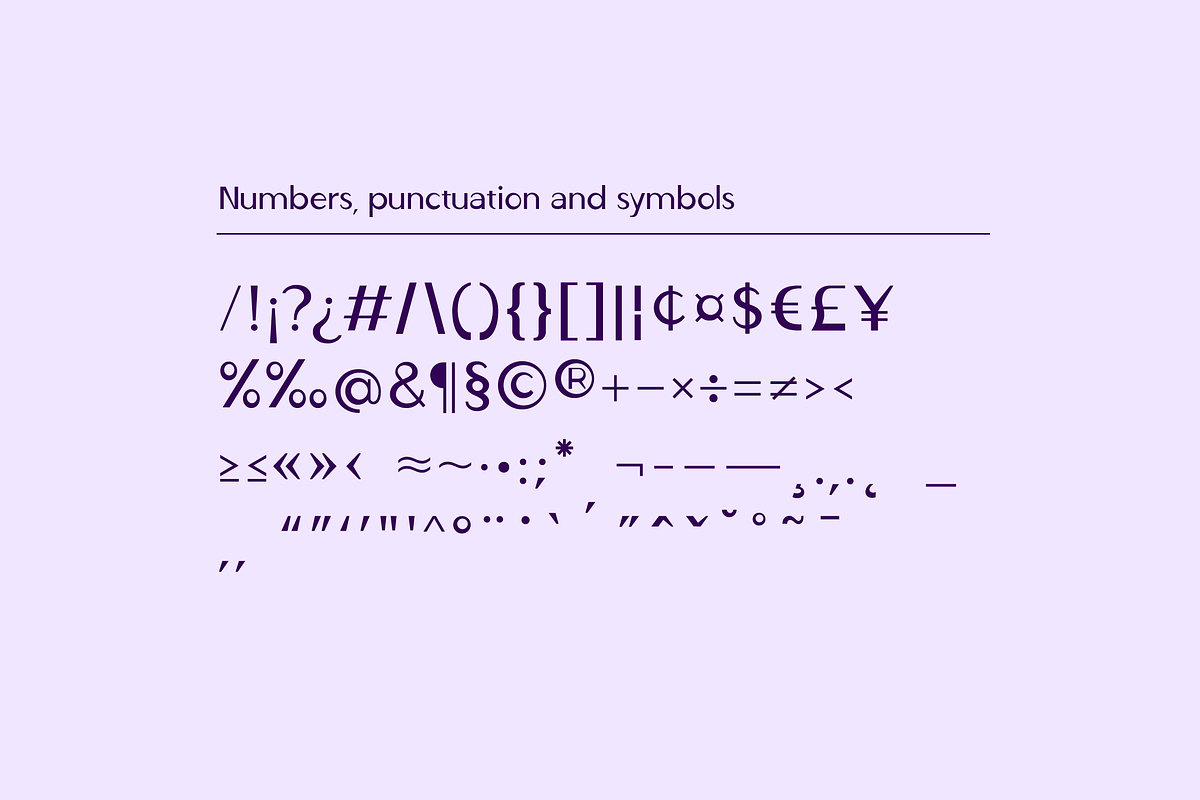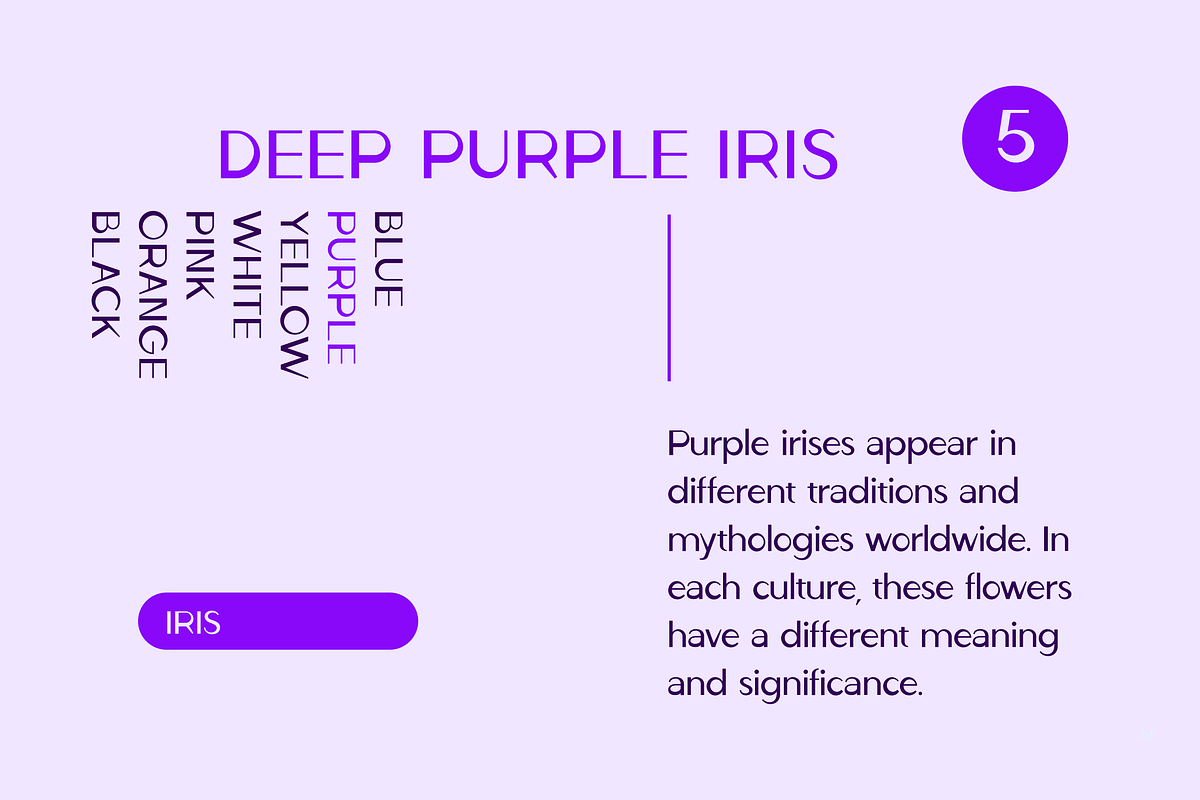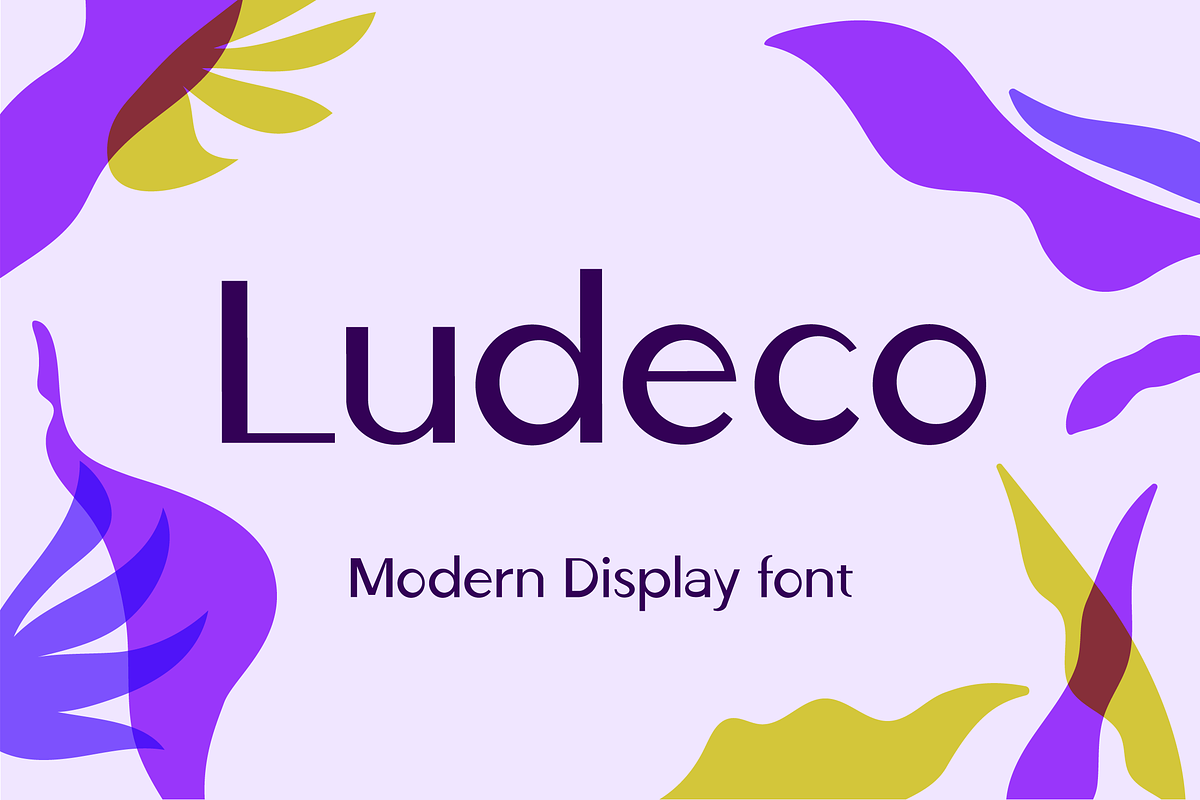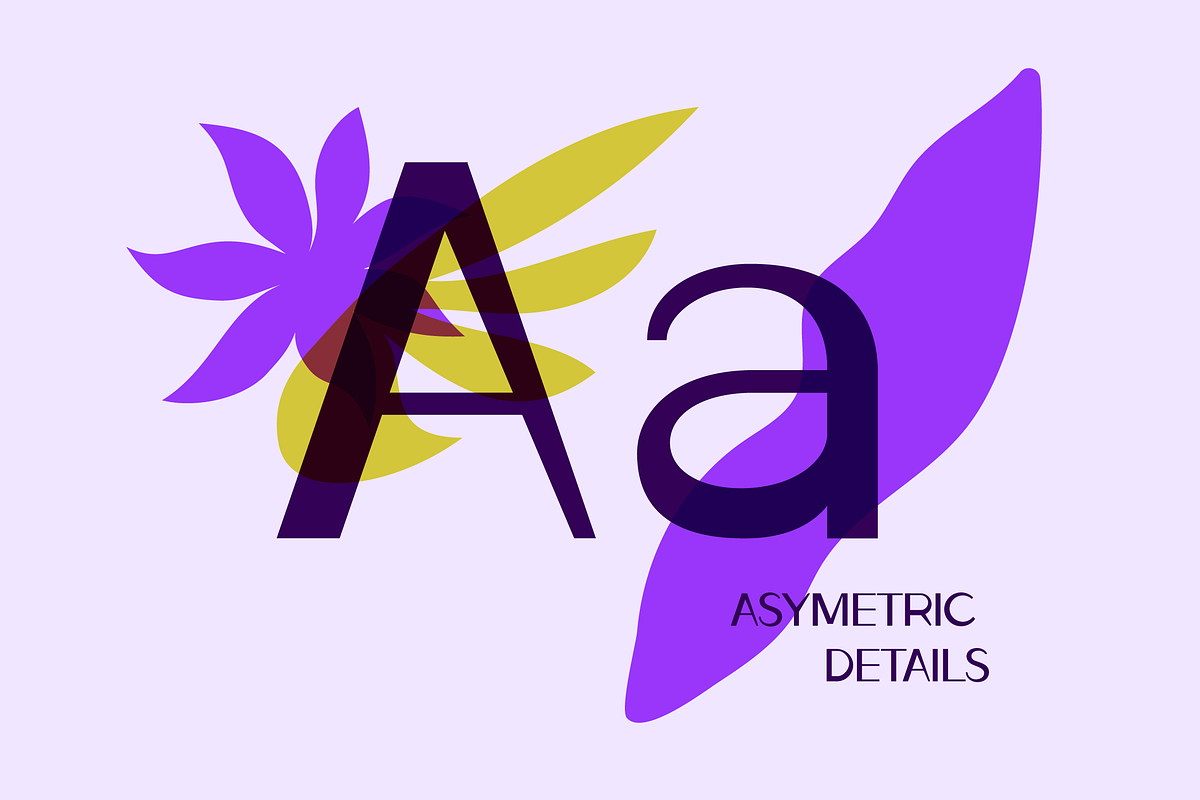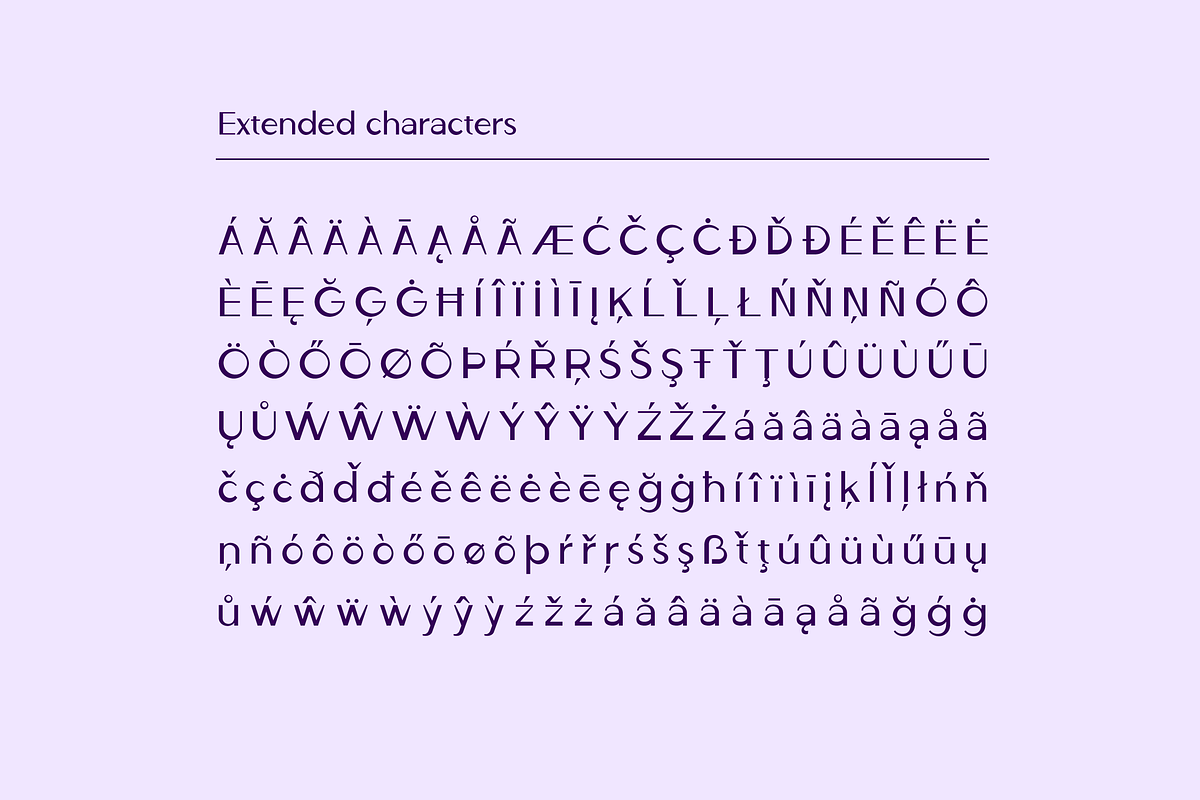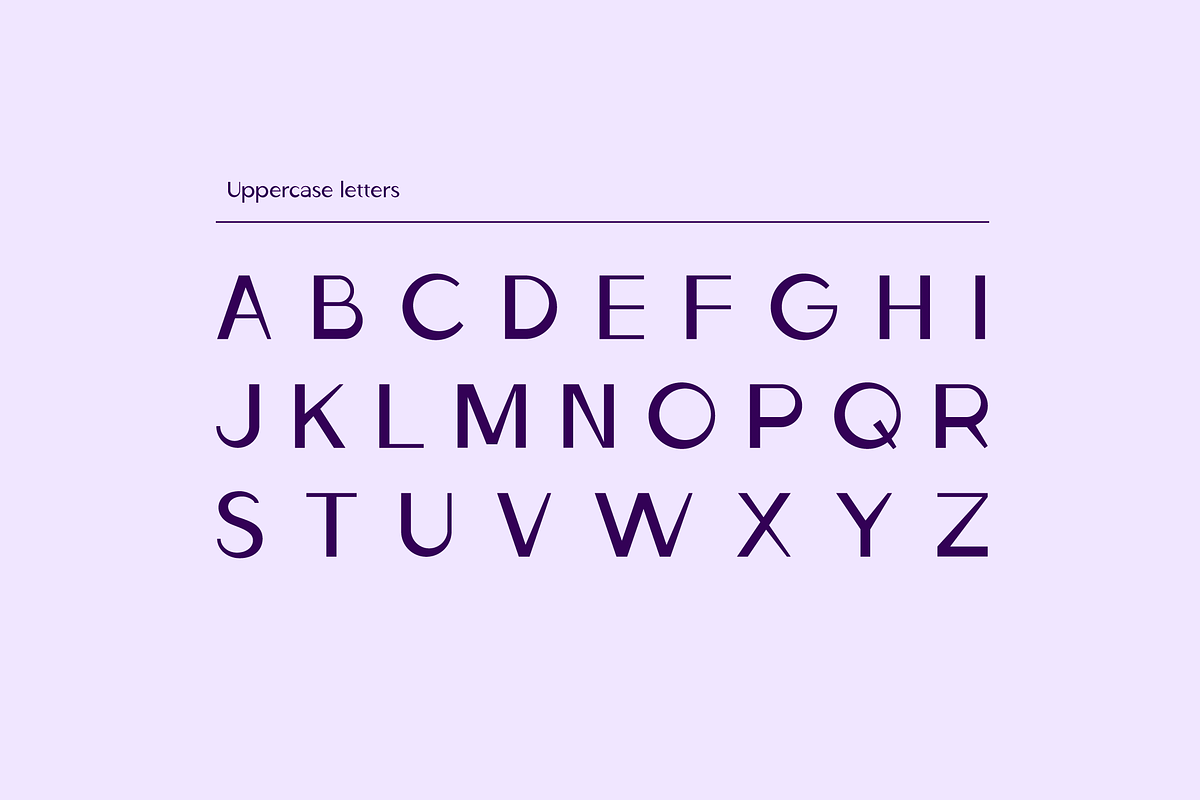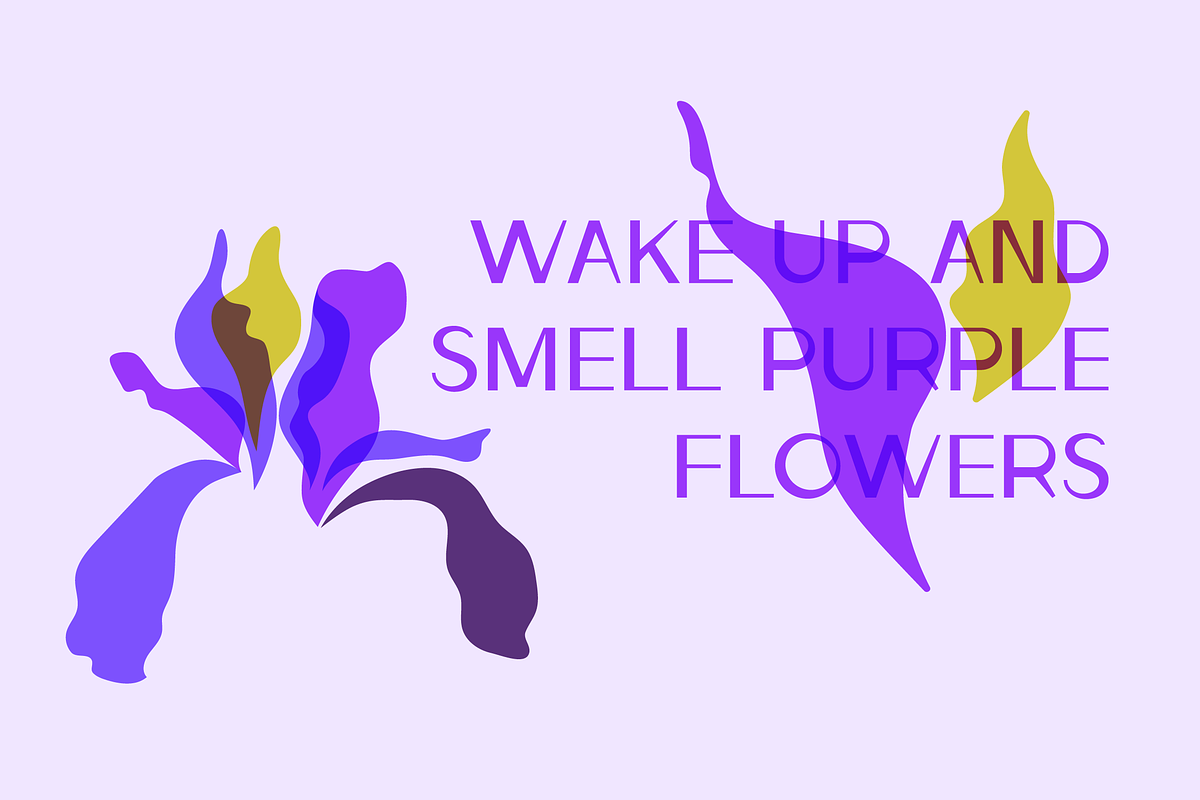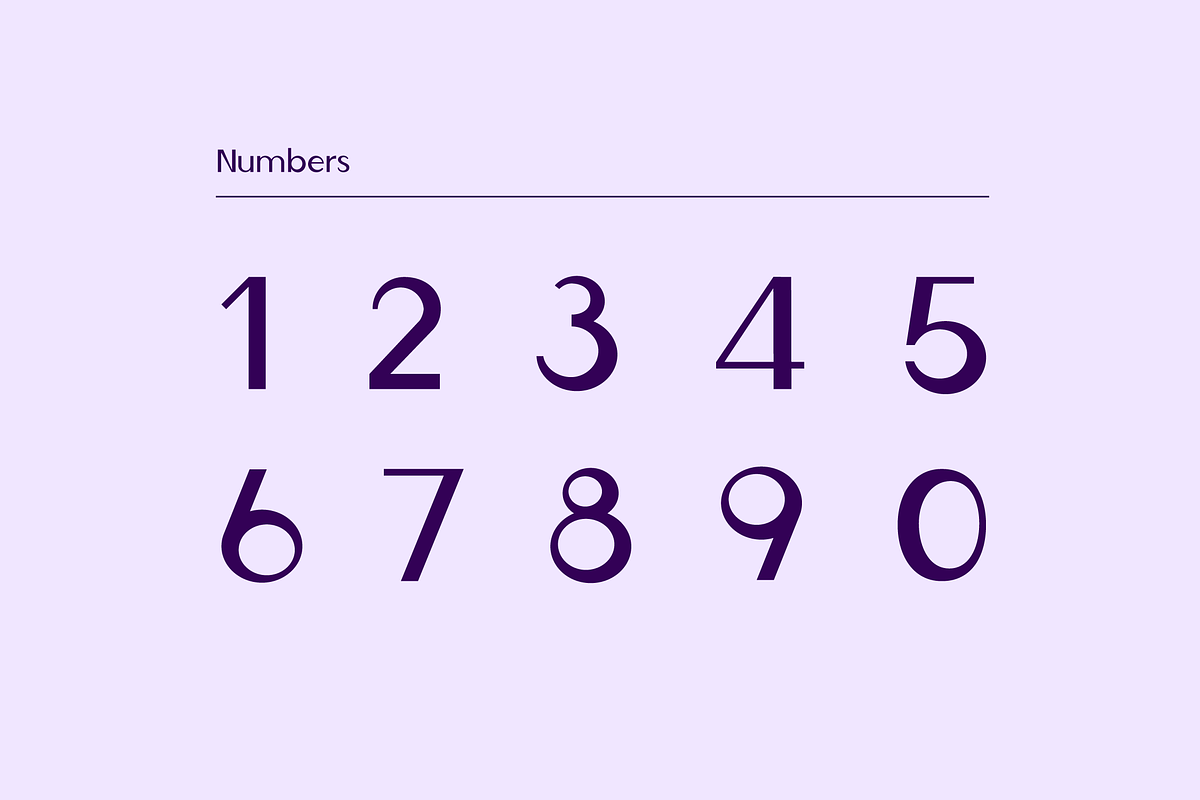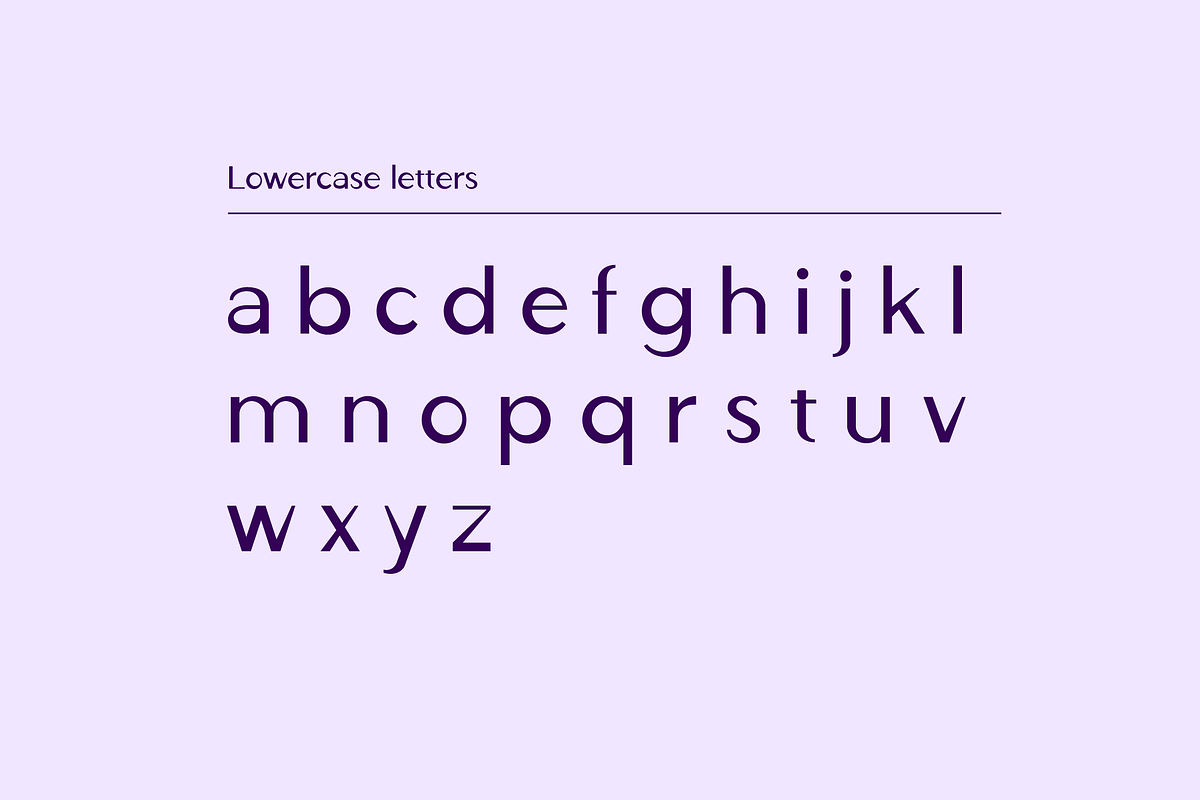
Ludeco Modern Display Font
Ludeco Modern Display
Ludeco is a modern display font with an asymmetrical structure. Letterforms have some resemblance to classic Art Deco style, but with a twist - the weight of the letterform shifts by making a unique pattern.
Ludeco Modern Display Font is perfect for logo design, branding, art prints, wedding cards and invitations, packaging, business cards, greeting cards, posters, magazines, social media, home decors, stationary, blogs, website design, and more.
Ludeco Font contains all uppercase and lowercase letters from A to Z and numbers from 0 to 9. Latin Extended letters are supported together with other bonus characters.